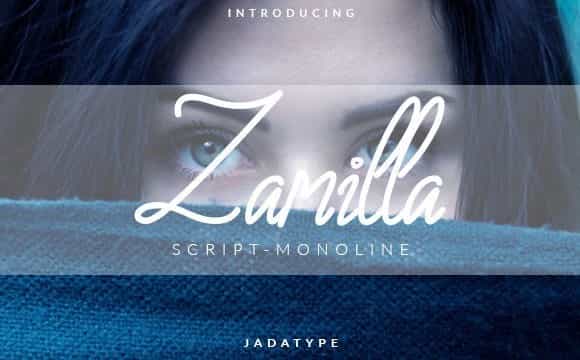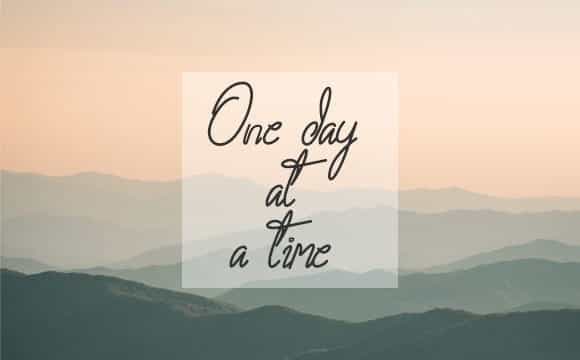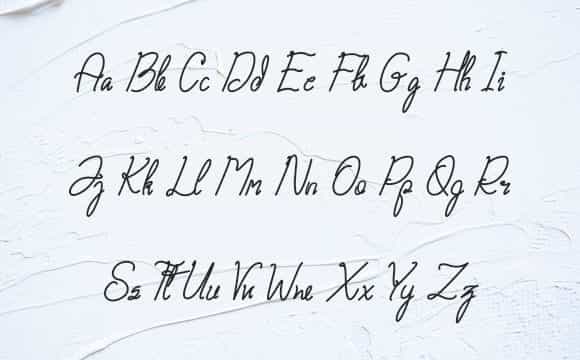
Zamilla offers a typeface featuring a monoline style and connected design. A creation born out of pure passion for typography. Perfectly suited for invitations, stationery items business cards blogs web design logos advertisements.